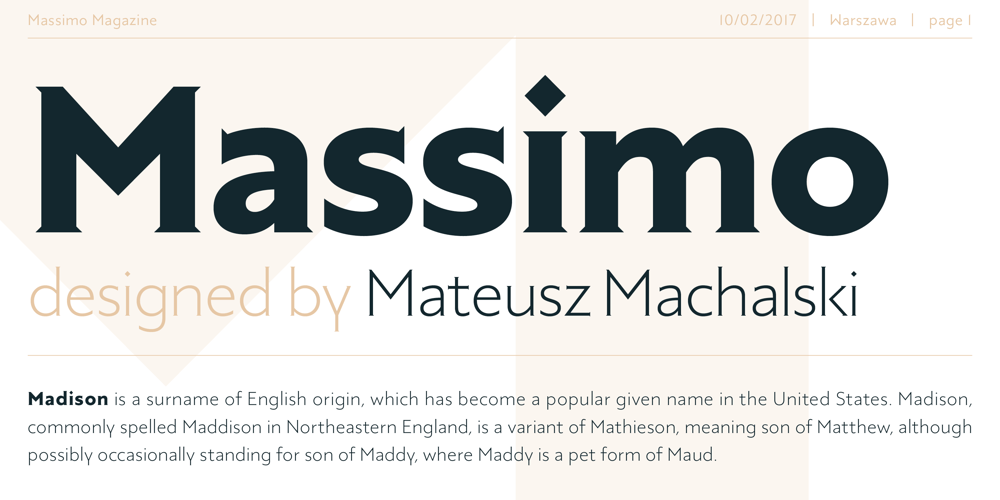
Massimo Font Family was designed by Mateusz Machalski and published by Machalski. Massimo contains 14 styles and family package options. Massimo is a semi-serif geometric type family. For as long as I can remember, I’ve admired the visual style of New York – its architecture, fashion, design, and typography. After spending two weeks in Manhattan this summer, I wanted to prepare a sharp and modern typeface in Big Apple style.